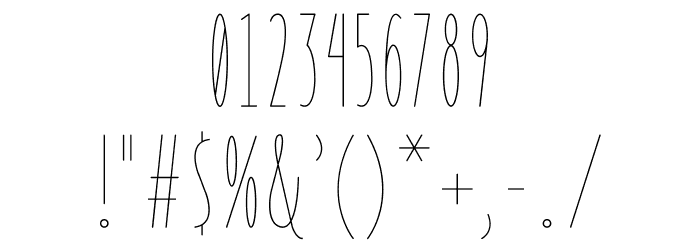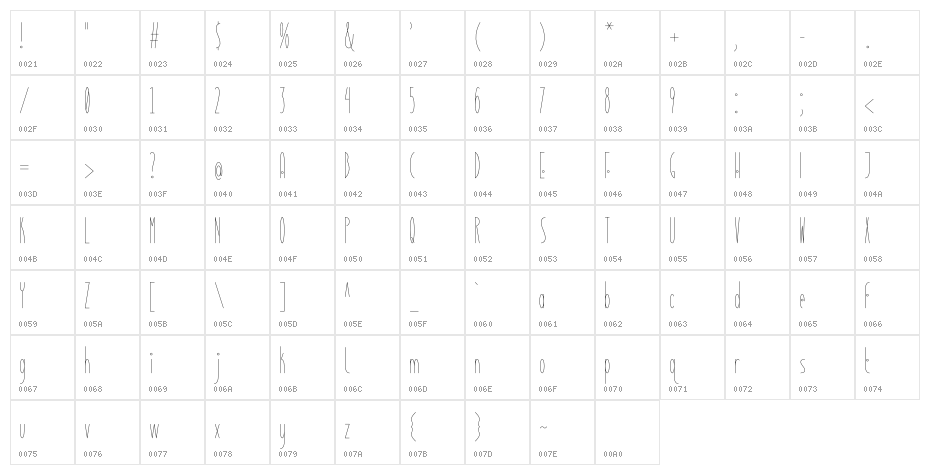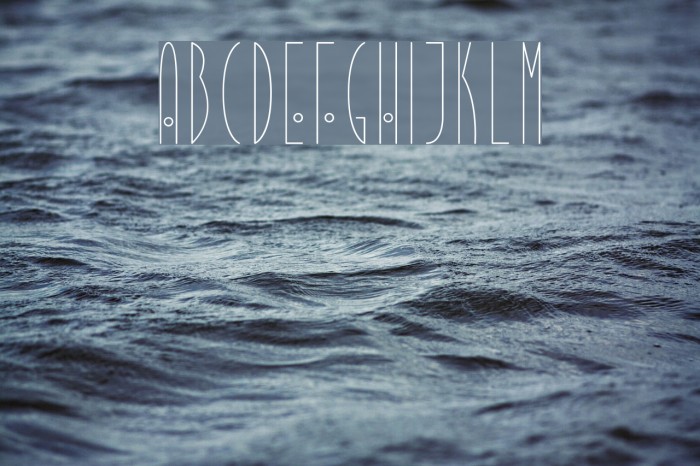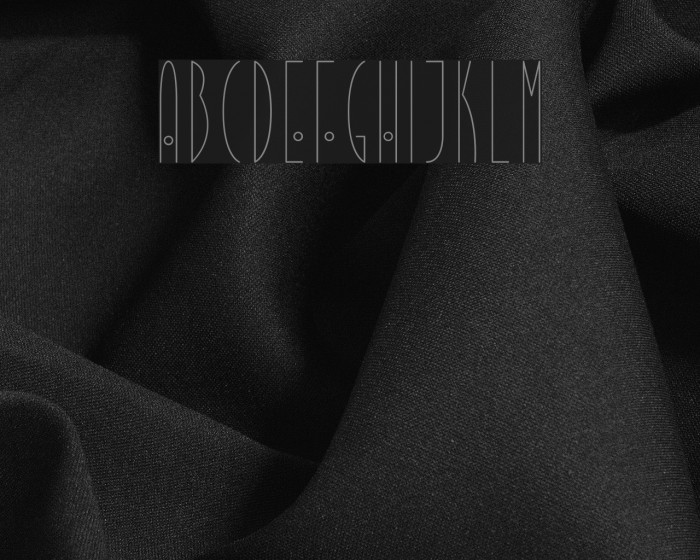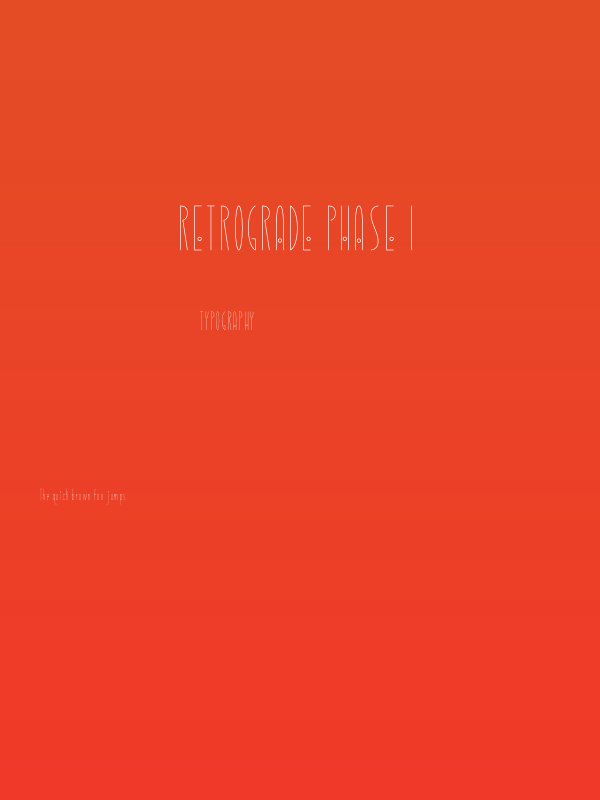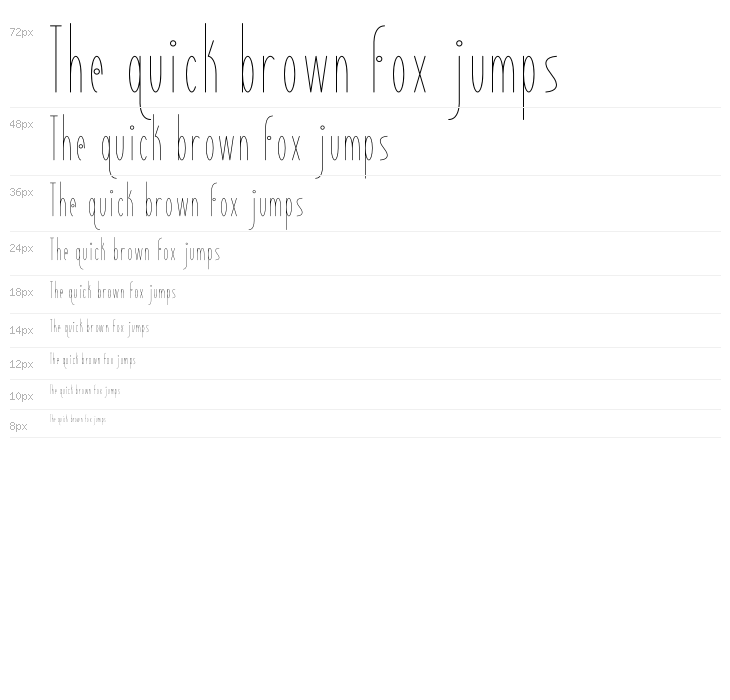
Retrograde Phase I Font
Retrograde Phase I Description
This font features a unique and playful design with elongated, thin strokes and circular embellishments within certain characters, giving it a whimsical and retro feel. The uppercase letters are tall and narrow, while the lowercase letters maintain a consistent height with a slightly more relaxed form. The numerals are clean and align well with the overall style, maintaining the elongated and thin aesthetic. Special characters are creatively integrated, matching the font's distinctive style. This font's quirky and artistic nature makes it stand out, offering a blend of elegance and fun.
| Overall Style | Retro, Whimsical |
| Use Case | Headlines, Posters, Invitations |
| Proposed Projects | Ideal for creative projects such as posters, invitations, branding for artistic ventures, or any design requiring a playful yet elegant touch. |